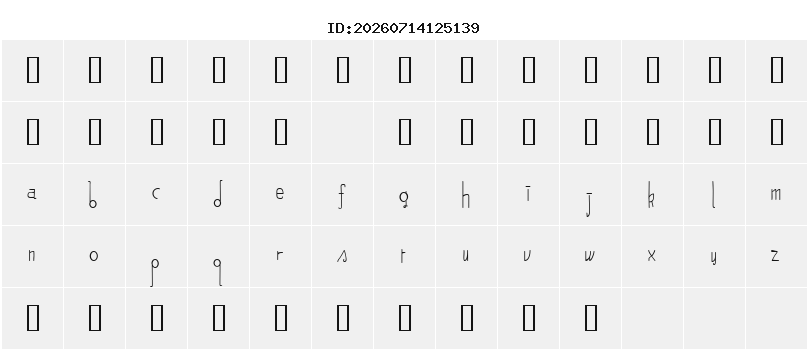
Harumph Preview
• Font Name: Harumph
• Full Font Name: Harumph Normal
About Harumph.ttf
Harumph.ttf is a modern, elegant sans-serif font designed for ultimate readability and visual harmony. Perfect for branding, headlines, web design, and print materials.